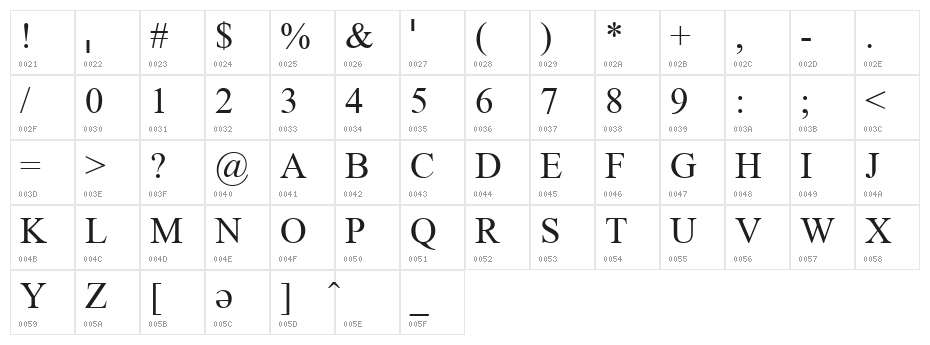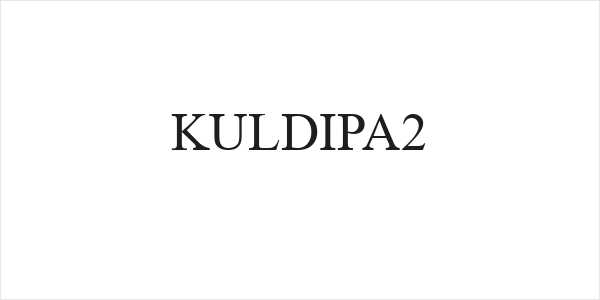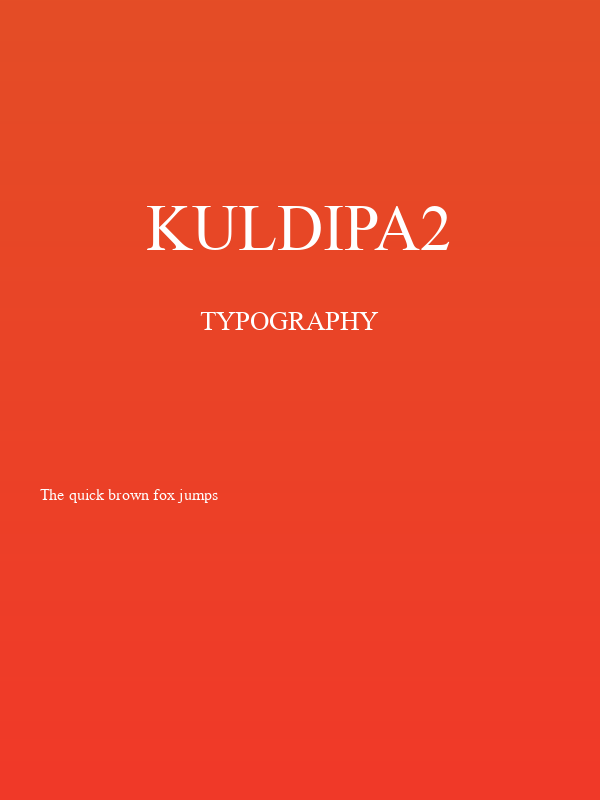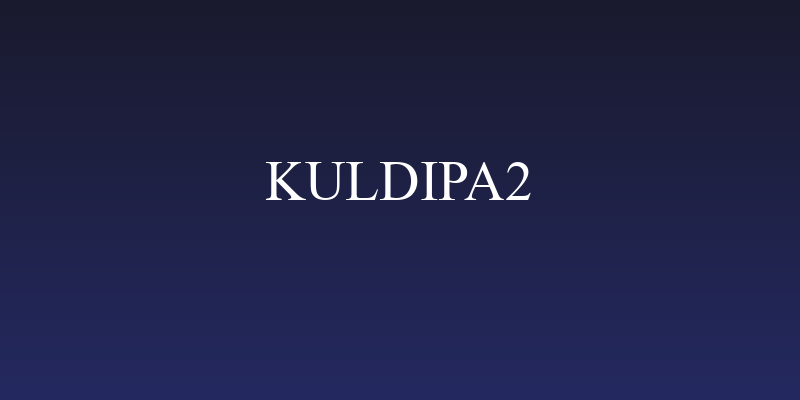
KULDIPA2 Font
KULDIPA2 Description
This font features a classic serif style with elegant and refined strokes. The uppercase letters are bold and commanding, while the lowercase letters maintain a graceful and flowing appearance. The numerals are clear and distinct, ensuring readability. Special characters are well-integrated, maintaining the overall aesthetic. The font's design is versatile, suitable for both formal and creative applications, offering a timeless appeal that can enhance a variety of projects.
| Proposed Projects | Ideal for editorial design, book covers, formal invitations, and branding projects. |